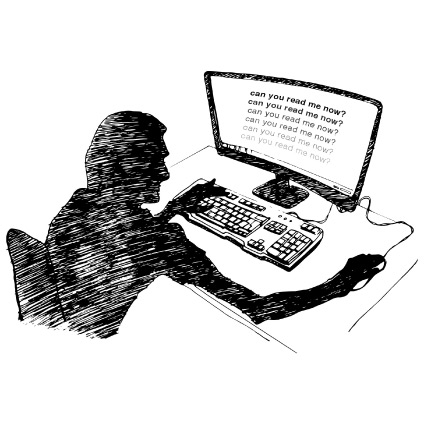
Featured in our latest deals newsletter, Sagona is too good not to mention again. A warm and inviting slab serif with big and imposing serifs, it makes an equally impressive design centerpiece as it does a text that blends in. This is a stellar effort from Rene Bieder, and best of all, you can try the book weight for free! |
Quasimoda, like it’s name implies, is a mixed font with a lot of variation between weights. Designed so that the lighter weights are more modern, the middle weights are highly legible, and the thick weights are more vintage in nature. Combine all of this and you have a very versatile package. |
Are you interested in writing like Donald Trump? Honestly, how could you answer no to a question like that? BuzzFeed designer Mark Davis (@markfonts) has crafted a font based off the Republican presidential nominee’s handwriting. It’s the best font you’ll ever see. The best. If you don’t agree you’re a total loser.
Our good friend Christopher Slye, Business Manager at Adobe Type & Typekit, spoke earlier this month at San Francisco Public Library about the intricacies of licensing and using fonts. We think there’s a lot that can be learned from his in-depth presentation.
Award winning blogger Kevin Marks comments on one of his design pet peeves, the fad of designing web pages and apps with minimal text contrast. Long story short, you may think your website is trendy, but you’re just making it harder to read for those on smaller screens or with aging eyes. Keep all your visitors in mind and design sites with legible text.